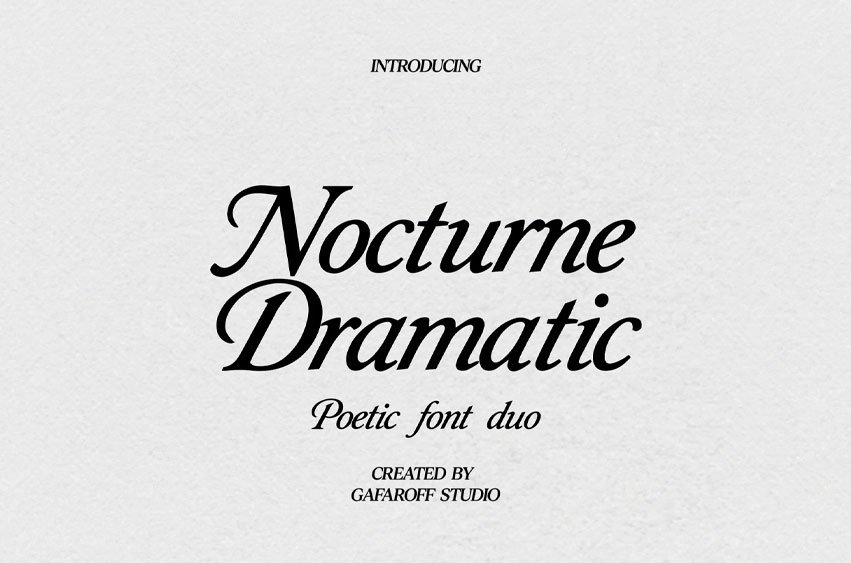
Nocturne Dramatic Font
Nocturne Dramatic Font is a poetic, dramatic font duo inspired by vintage calligraphy and editorial elegance.
This set includes an expressive italic script with swashy capitals and high-contrast strokes, paired with a clean serif companion for timeless layouts.